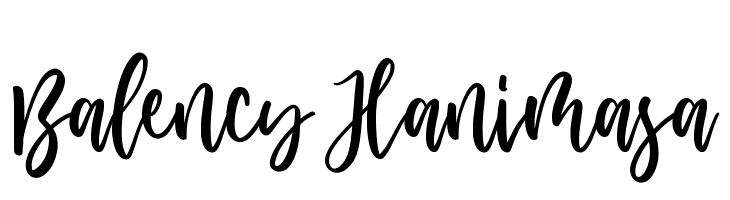
A playful handwritten font with smooth, flowing lines and a casual aesthetic.
A modern, decorative font with elegant uppercase and script-like lowercase letters.
A bold, dynamic font with elongated, irregular letterforms conveying energy and movement.
A bold, playful font with thick, rounded strokes and a whimsical style.
A flowing, cursive script font with elegant loops and swashes.
A flowing, cursive font with elegant, interconnected strokes.
A bold, expressive script font with flowing, cursive letters.